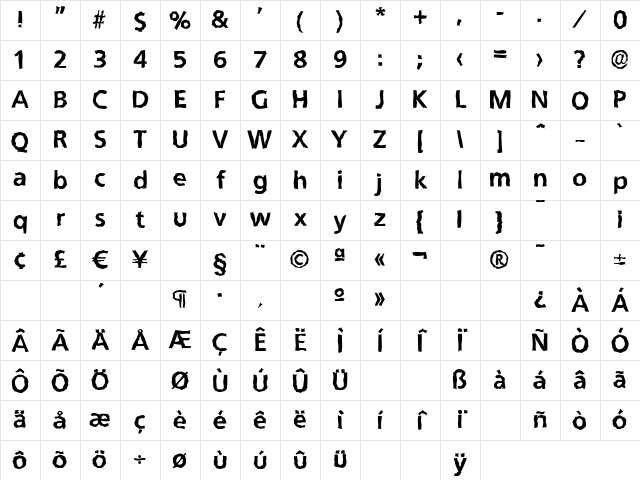
QuebecRandom-Xbold Regular
Complete QuebecRandom-Xbold Regular glyph index. Displaying only characters natively supported by QuebecRandom-Xbold Regular font.
Design Context for QuebecRandom-Xbold
QuebecRandom-Xbold is a composed and adaptable typeface that performs quietly and consistently across a wide range of design contexts. Its bold stroke weight gives it real presence on the page.